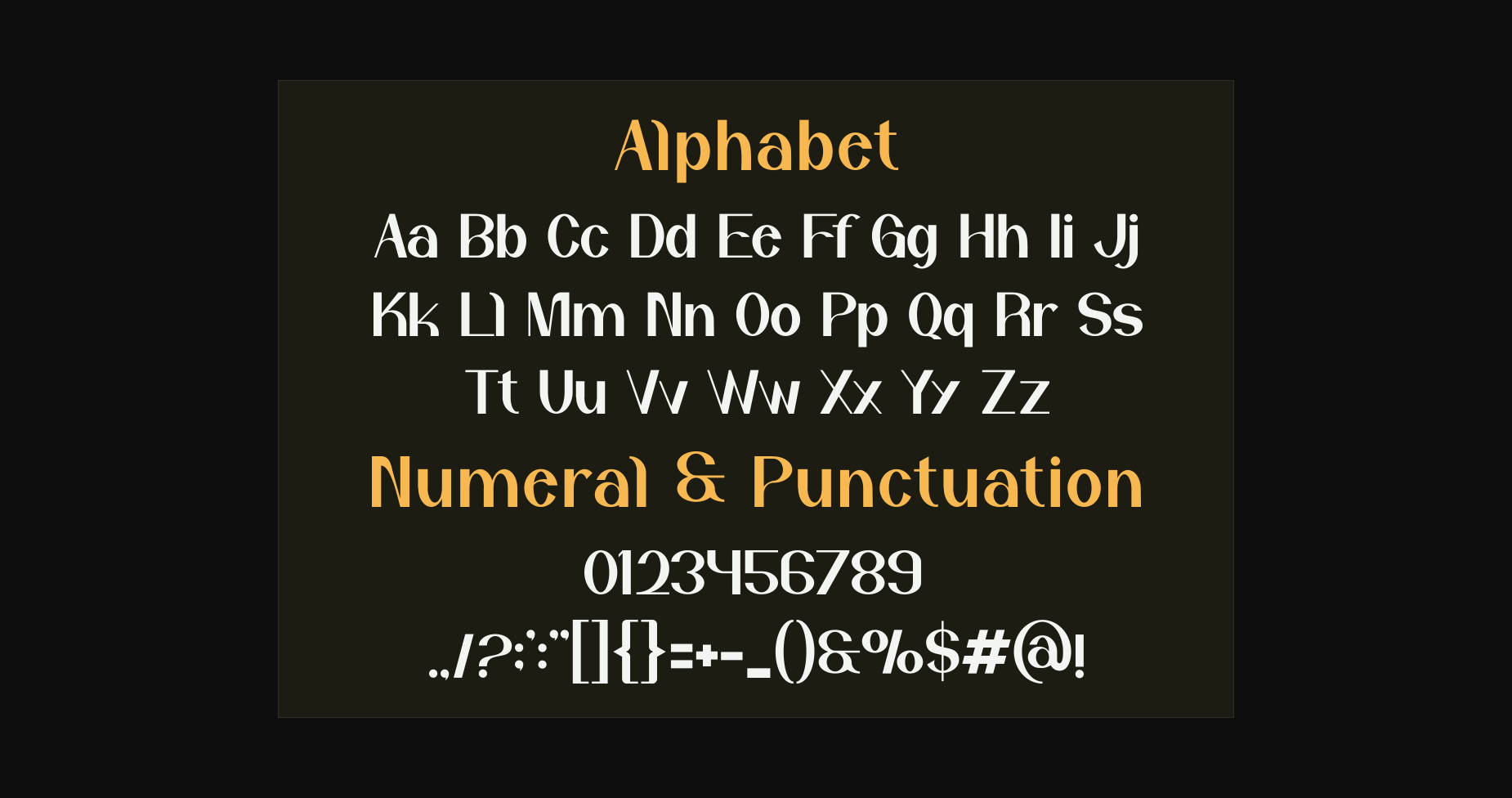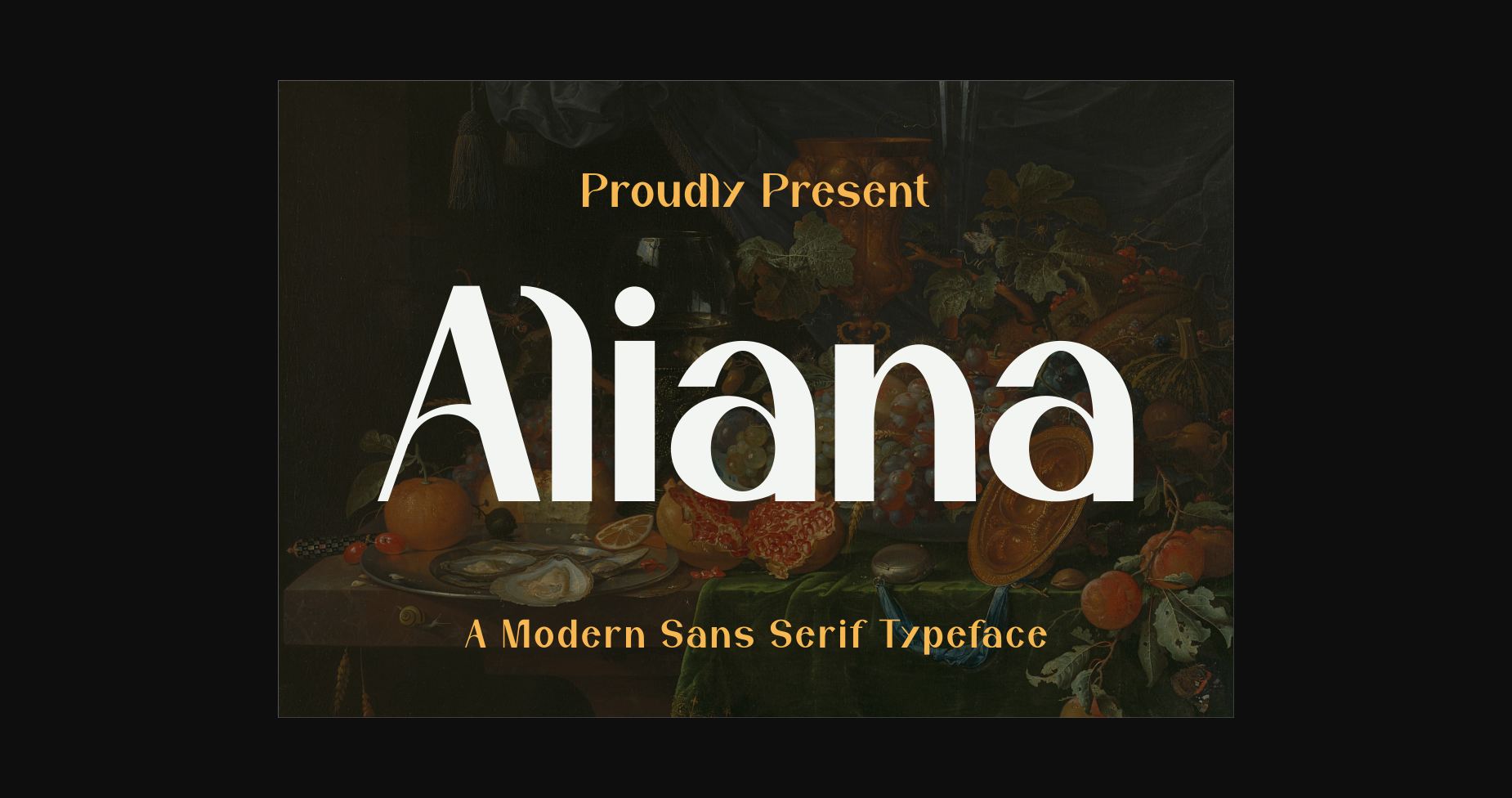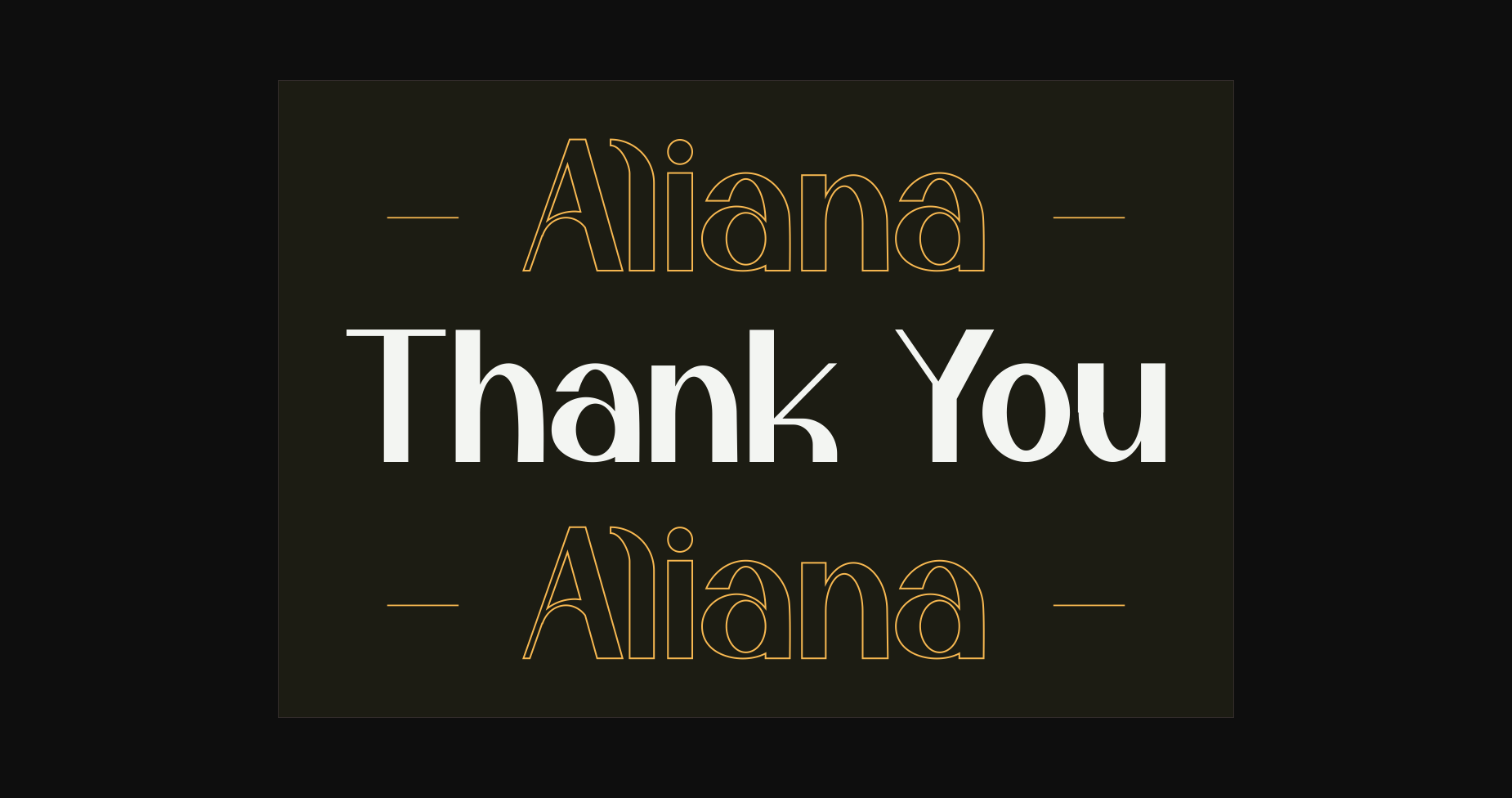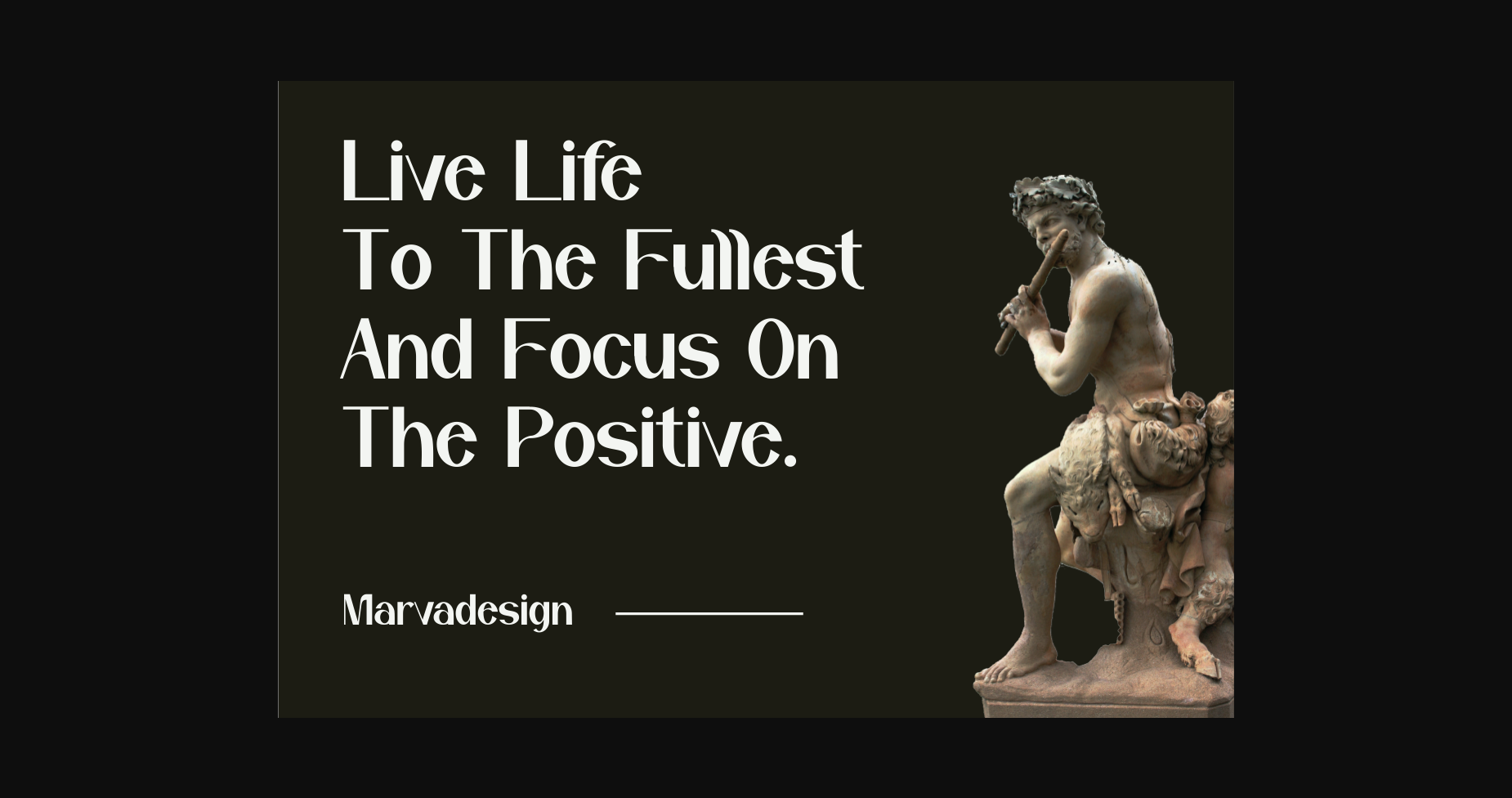
Aliana is a modern and stylish sans serif font. Fall in love with its incredibly versatile style and use it to create gorgeous wedding invitations, beautiful stationary art, eye-catching social media posts, and much more!